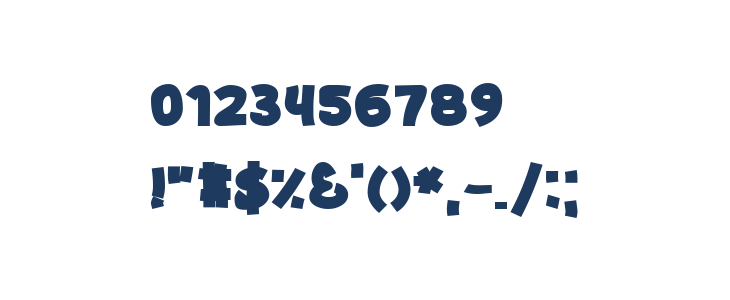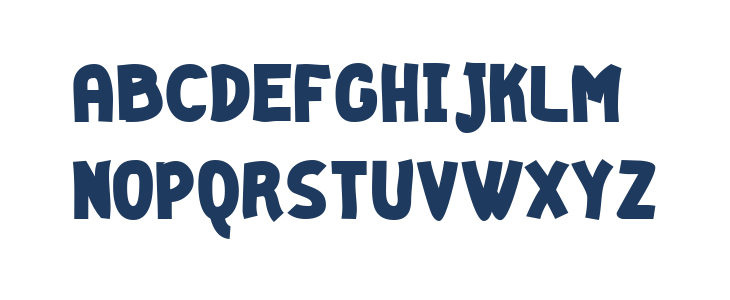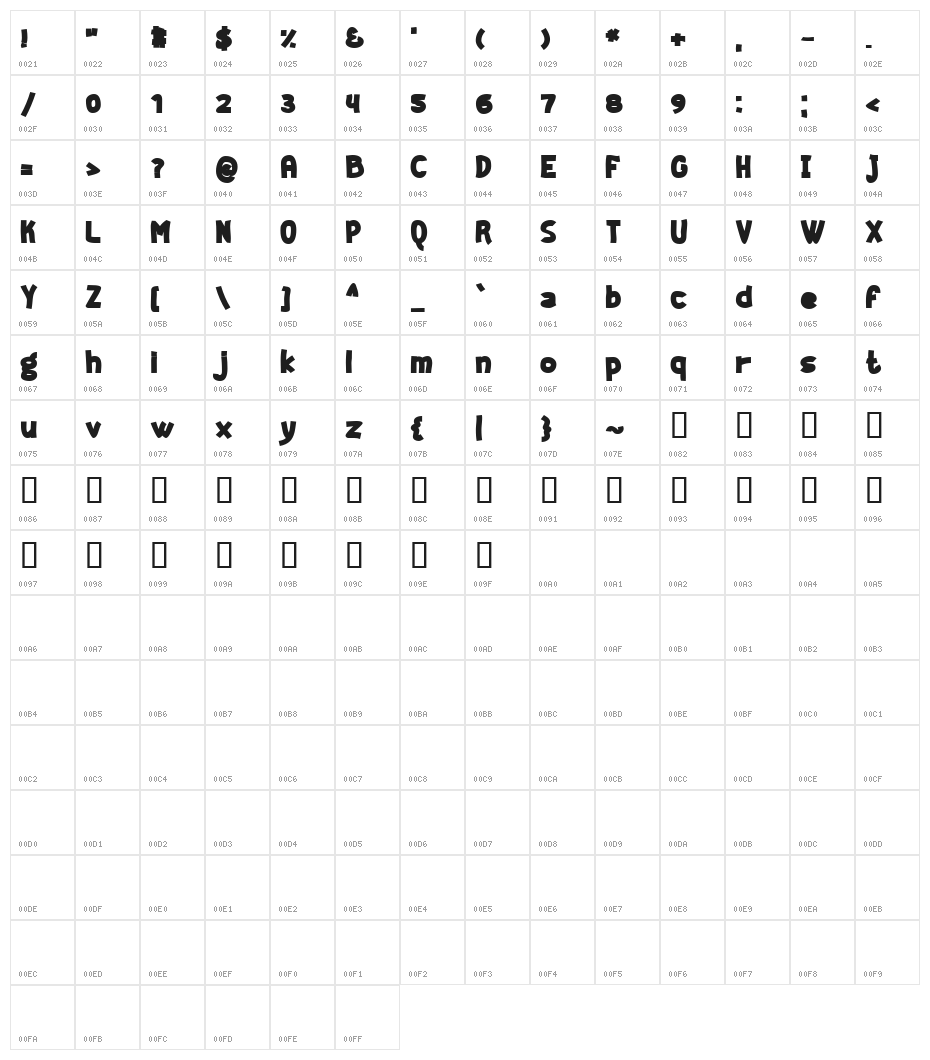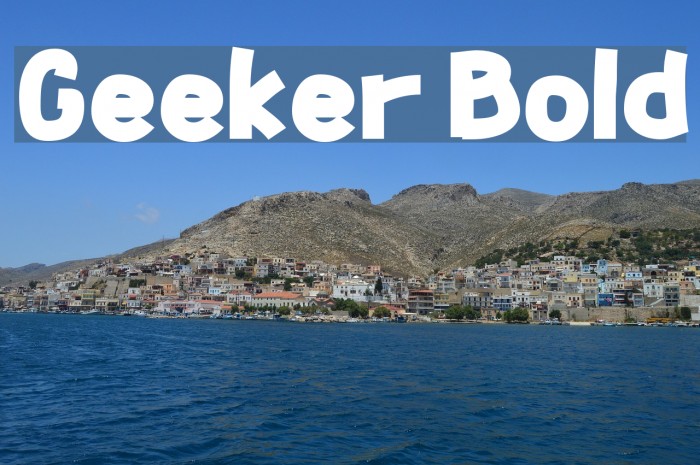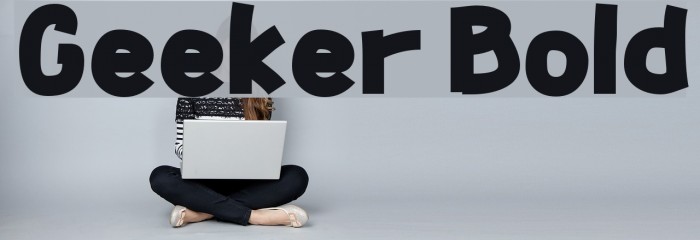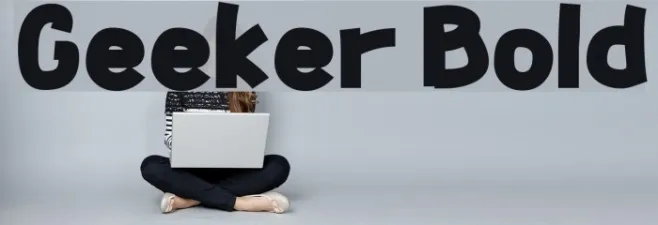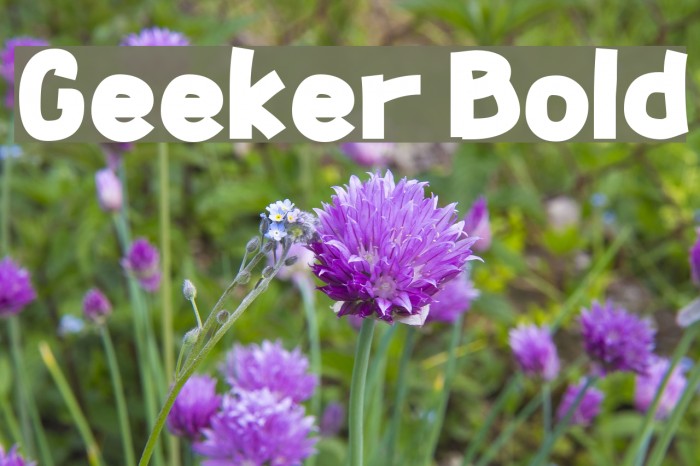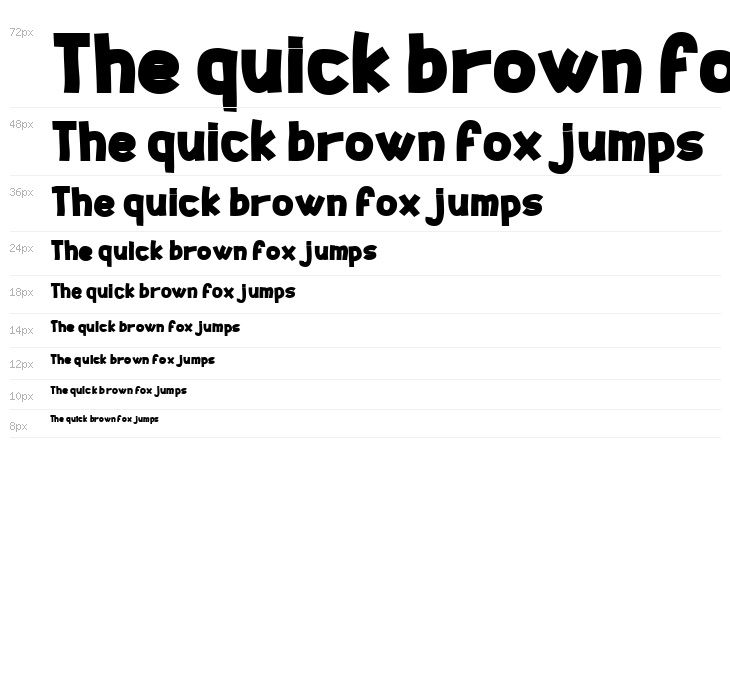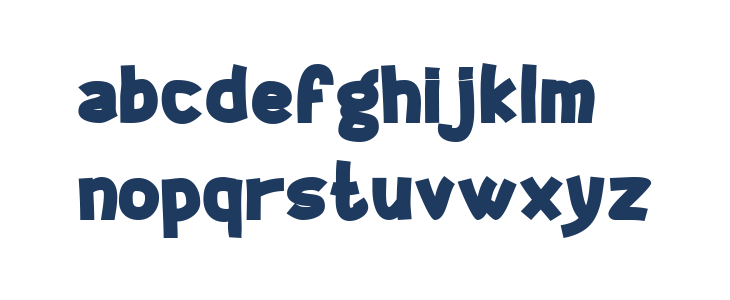
Geeker Bold Font
Geeker Bold Description
This font features a bold and playful style with a strong presence. The characters are thick and slightly irregular, giving them a hand-drawn, whimsical appearance. The uppercase letters are particularly robust, with a slight slant that adds to the dynamic feel. Lowercase letters maintain the same playful aesthetic, with rounded edges and a consistent weight throughout. Numbers and special characters follow the same design principles, ensuring uniformity across all glyphs. The overall look is both modern and fun, making it suitable for creative and informal applications.
| Overall Style | Playful, Modern |
| Proposed Projects | Ideal for children's books, playful branding, posters, and creative digital content. |